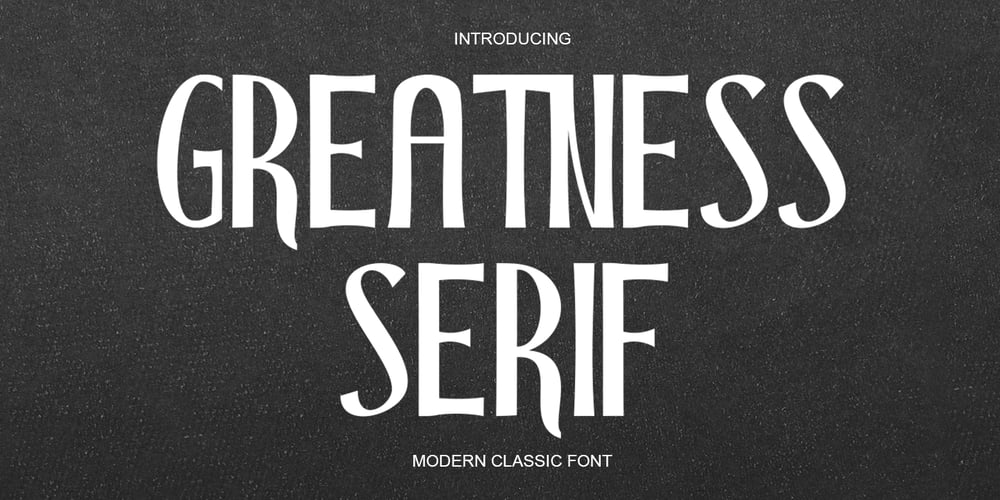
Greatness Serif Font Family was designed by Teuku Saifullah and published by Shape Studio. Greatness Serif contains 1 styles and family package options. Greatness font is a new modern serif calligraphy font with an irregular baseline. Trendy and feminine style.Greatness font looks lovely on wedding invitations, thank you cards, quotes, greeting cards, logos, business cards and more. Perfect for using in ink or watercolour. Including initial and terminal letters, alternates, ligatures and multiple language support.